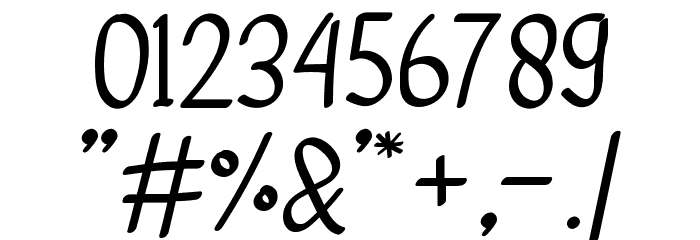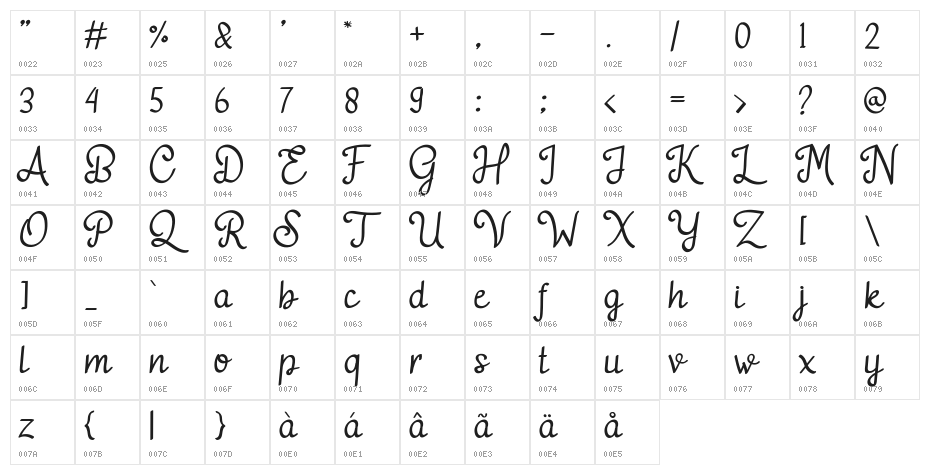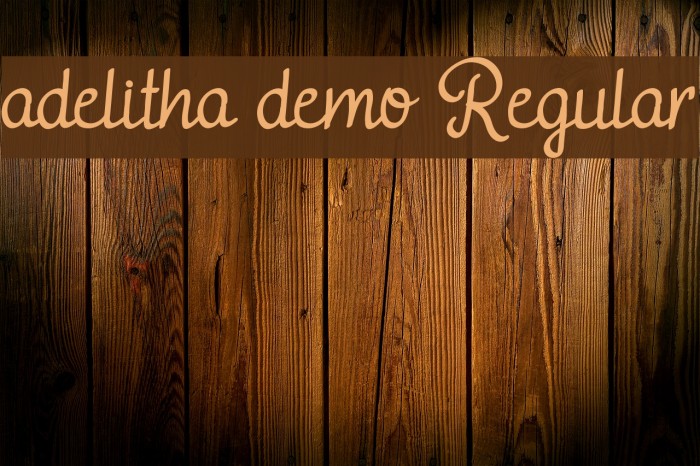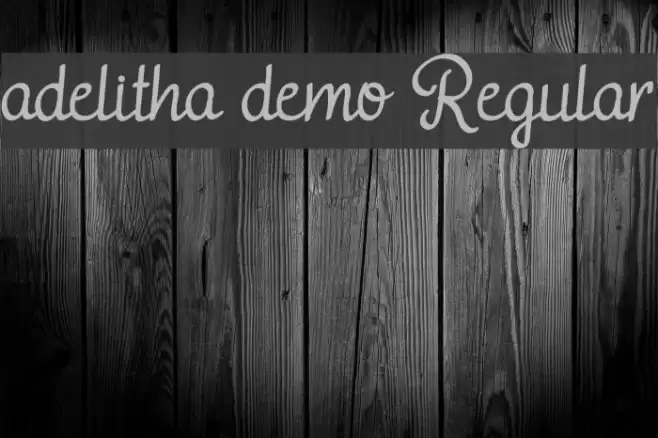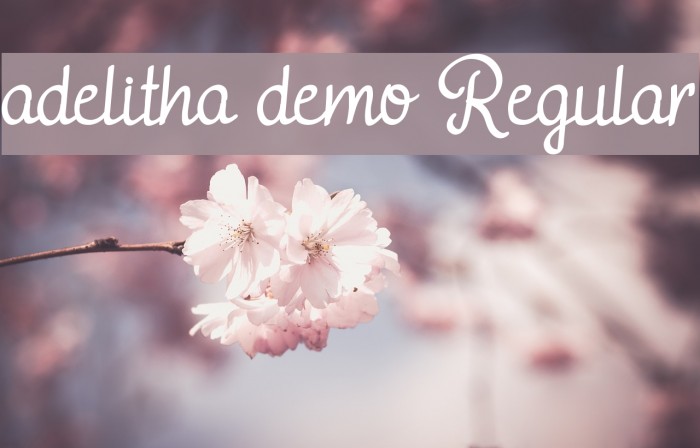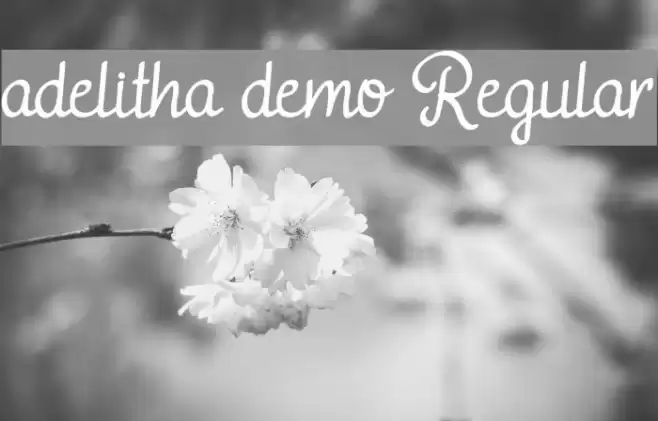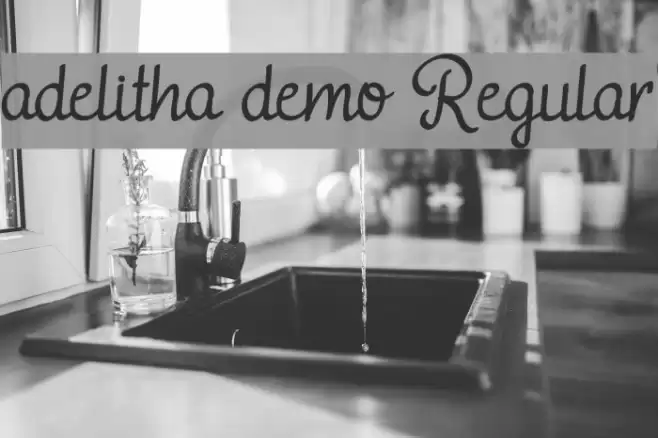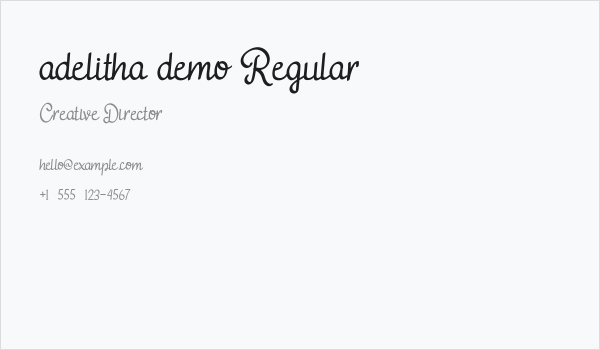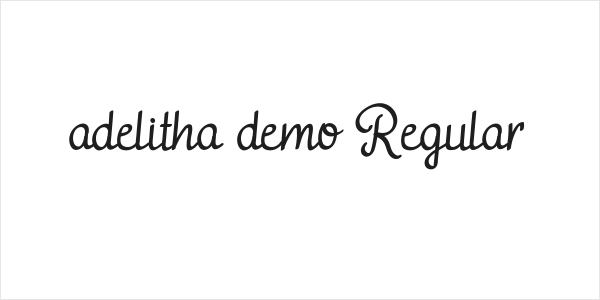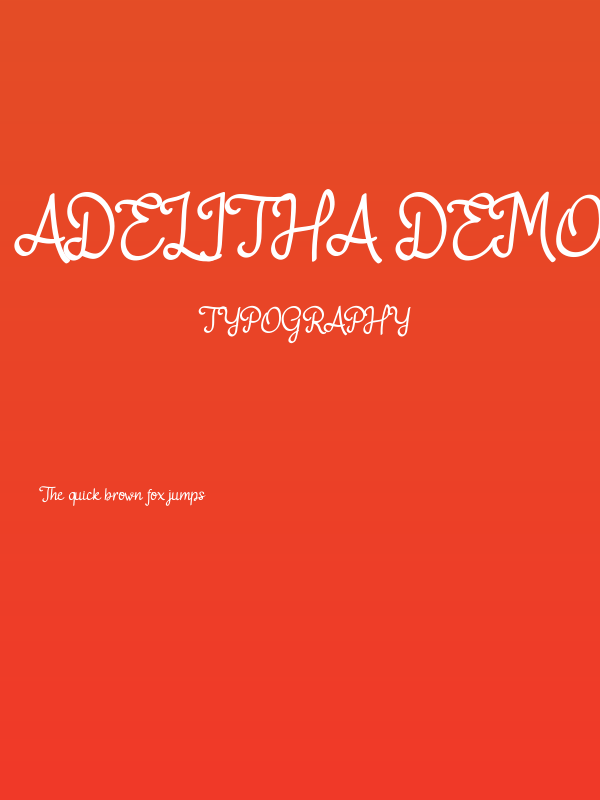
adelitha demo Regular Font
adelitha demo Regular Description
This font exudes a playful and whimsical charm, characterized by its flowing, cursive style. The uppercase letters are elegantly crafted with smooth curves and subtle flourishes, giving them a lively yet sophisticated appearance. The lowercase letters maintain a consistent flow, with rounded forms and a slight slant that enhances readability. Numbers are well-proportioned and align seamlessly with the overall design. Special characters are thoughtfully integrated, maintaining the font's cohesive aesthetic. This font's unique style makes it suitable for creative and expressive projects.
| Use Case | Logos, Invitations, Creative projects |
| Proposed Projects | Ideal for greeting cards, invitations, branding, and creative design projects. |